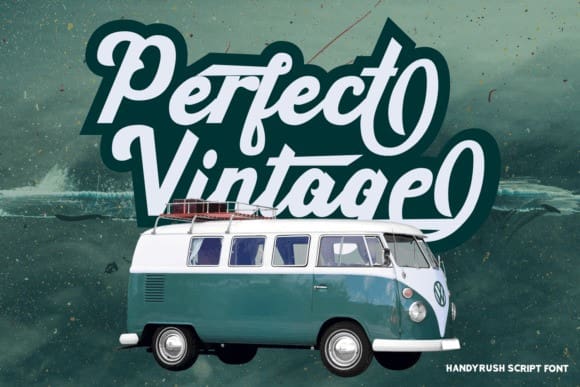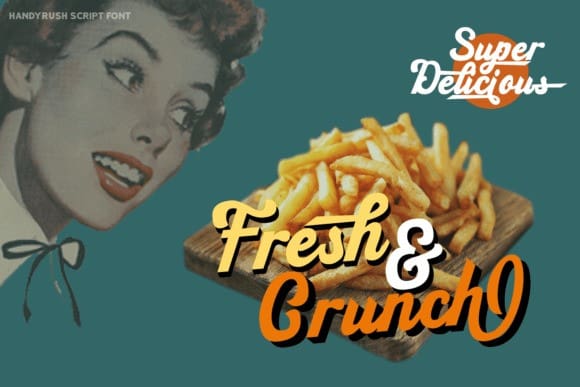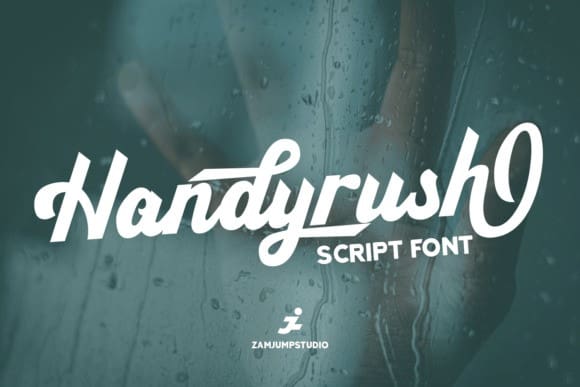
Handyrush Font
Handyrush Font, it was inspired by retro typography designs in the 80’s and is very suitable for application especially on logos, invitations, labels, magazines, books, greeting / wedding cards, packaging, fashion, make up, stationery, novels, labels or any type of advertising purposes.